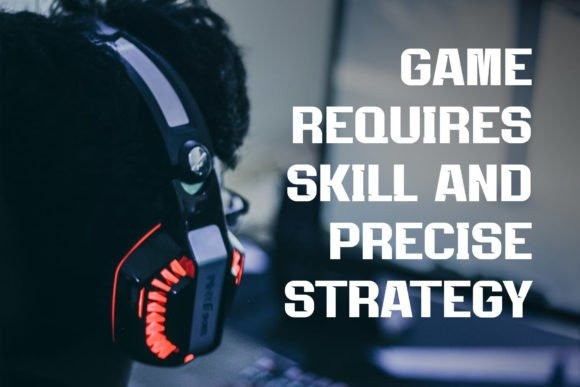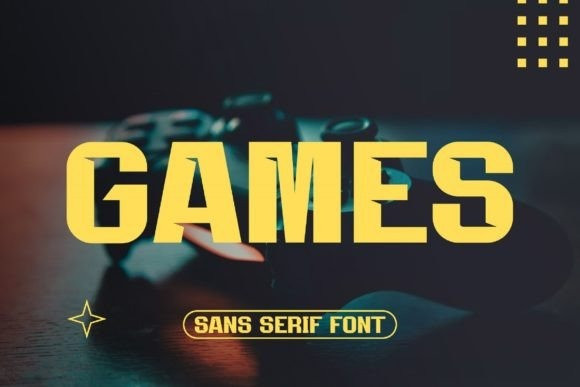
Games Font
Games Font, Inspired by the famous minimalist logo, Games is perfect for the purpose of designing templates, brochures, videos, advertising branding, logos, invitations, layout designs, elegant crafting, beauty designs and much more.